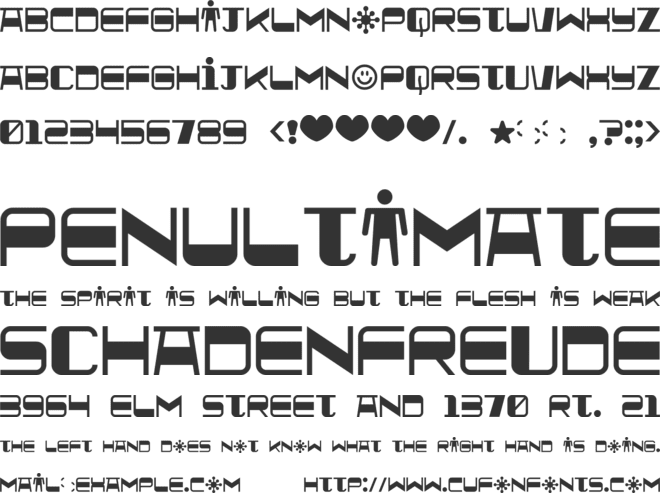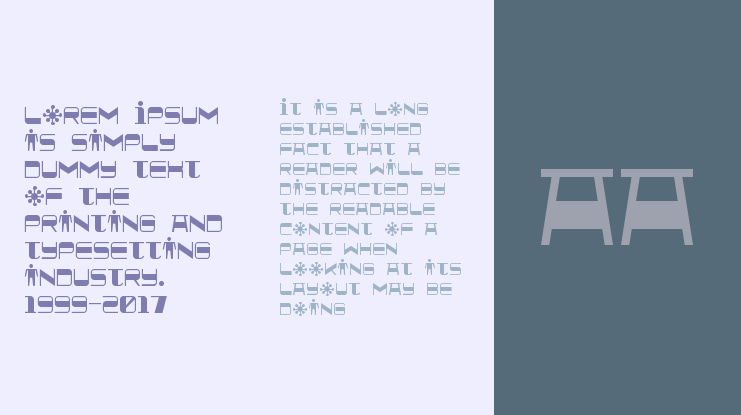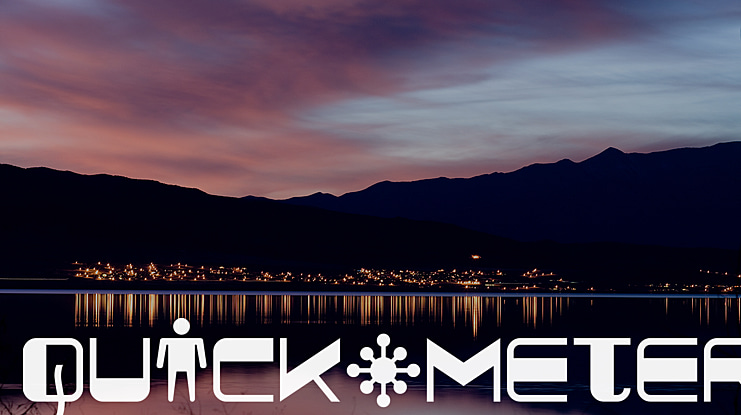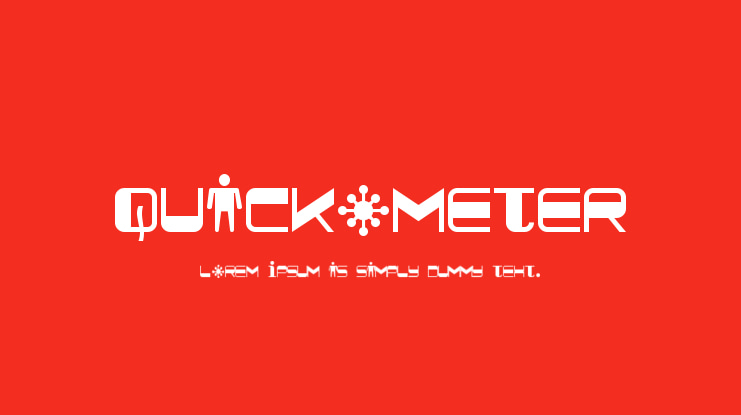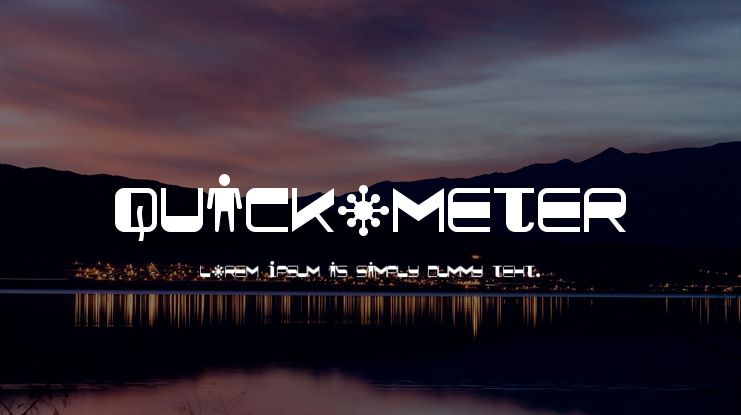
Quickometer Font
I guess this one fits into the techno category. Even though I made this font in a couple of hours, I think it has got a great (but simple!) look to it! - Check it out and see if you like the "i" and the "o"